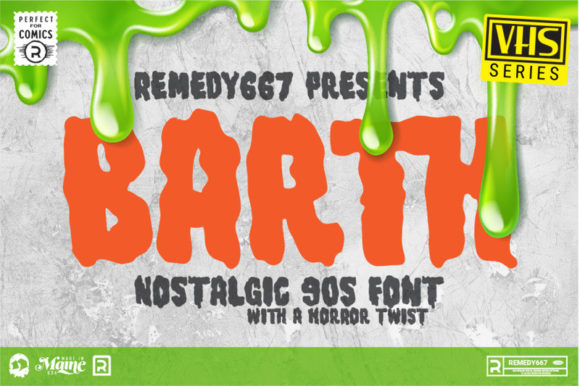
Barth Font: Unleash the Bold and Captivating Spirit of Your Creative Endeavors
In a world of ordinary fonts, Barth Font emerges as a bold and striking display typeface, ready to elevate your creative projects to new heights. Created by the ingenious mind of remedy667, Barth Font is a testament to the power of typography, meticulously crafted to capture the essence of audacity and visual impact.
Step into the world of Barth Font, where letters dance with a life of their own, commanding attention and leaving an indelible mark on the minds of your audience. Its thick, blocky structure exudes a sense of strength and solidity, while its sharp edges and dynamic curves add an air of intrigue and mystery.
With Barth Font as your creative companion, you'll embark on a journey of limitless possibilities. Design concert posters that ignite the imagination, flyers that demand attention, and social media graphics that captivate the senses. Barth Font's innate ability to convey a sense of urgency and excitement makes it the perfect choice for projects that demand an immediate and visceral response.
But Barth Font's prowess extends far beyond the realm of digital creations. Unleash its potential in the physical world, where it will transform ordinary objects into extraordinary works of art. Embroider your clothing with Barth Font's bold characters, creating a unique fashion statement that reflects your individuality. Etch your company logo onto signage, leaving a lasting impression on clients and customers alike.
The versatility of Barth Font knows no bounds. Whether you're crafting wedding invitations that exude elegance, designing business cards that speak volumes about your professionalism, or creating eye-catching book covers that hint at the captivating stories within, Barth Font will elevate your designs to new heights.
Take your creative vision to the next level with Barth Font. Embrace its bold and captivating spirit, and watch as your projects come alive with an energy and vitality that's impossible to ignore.